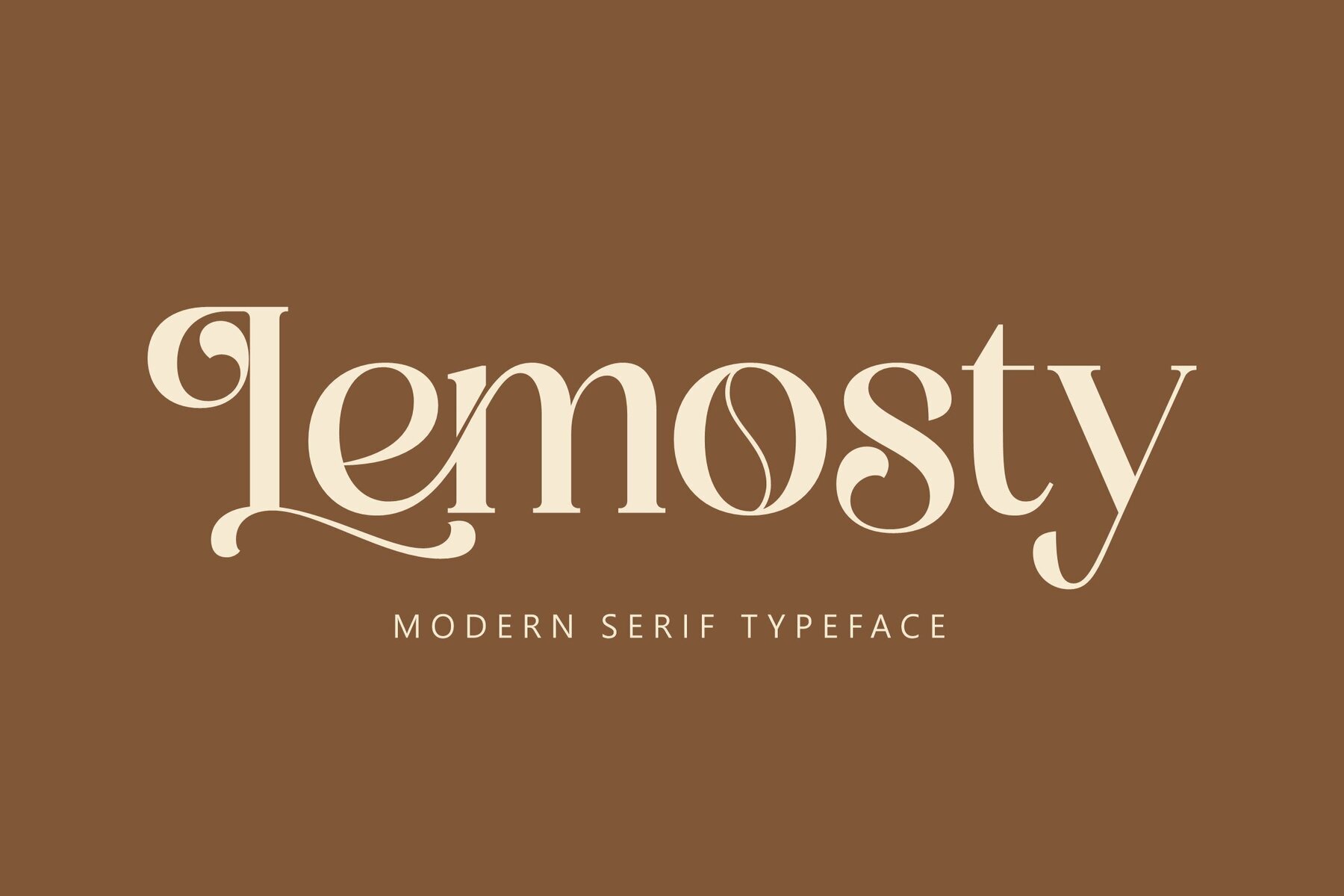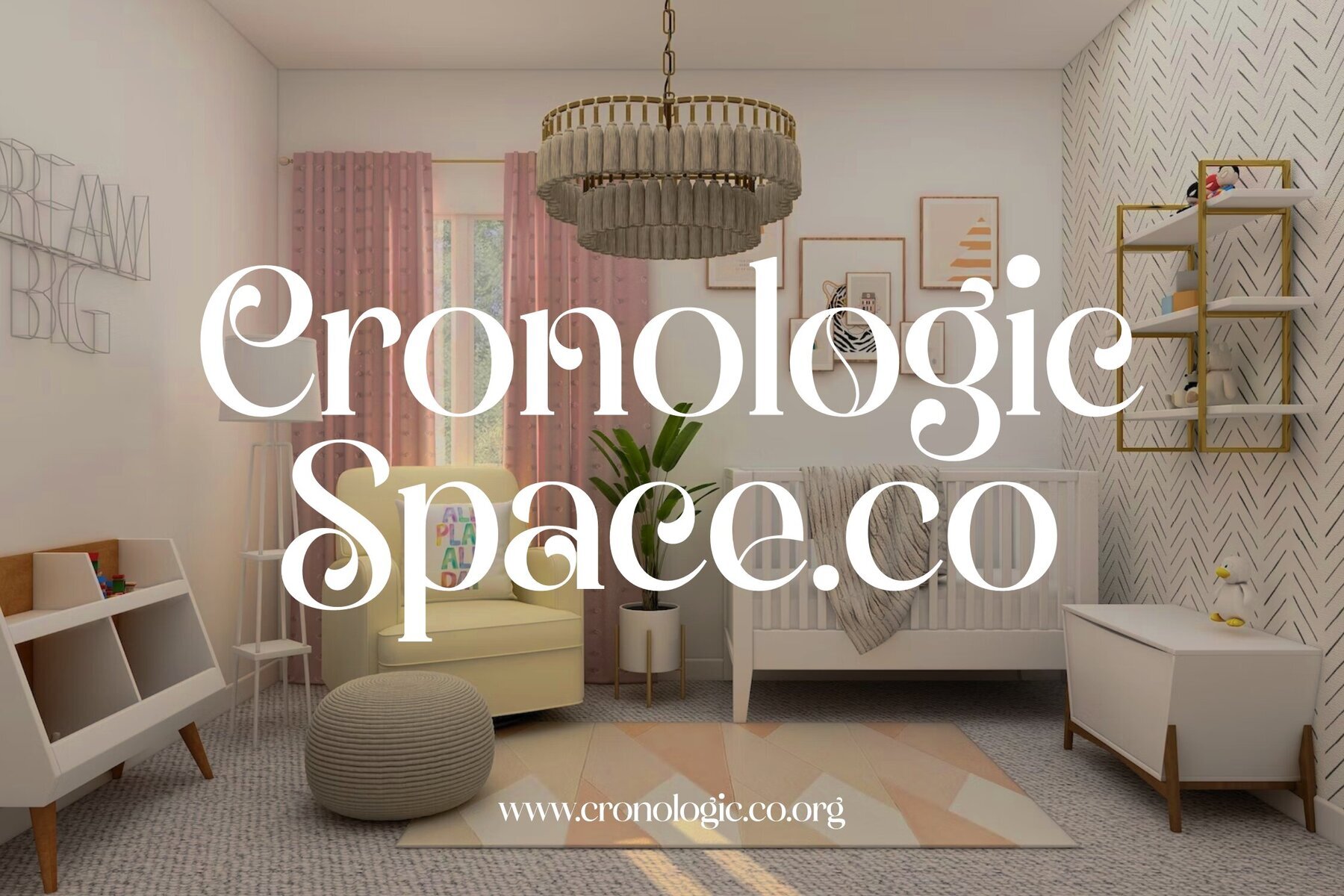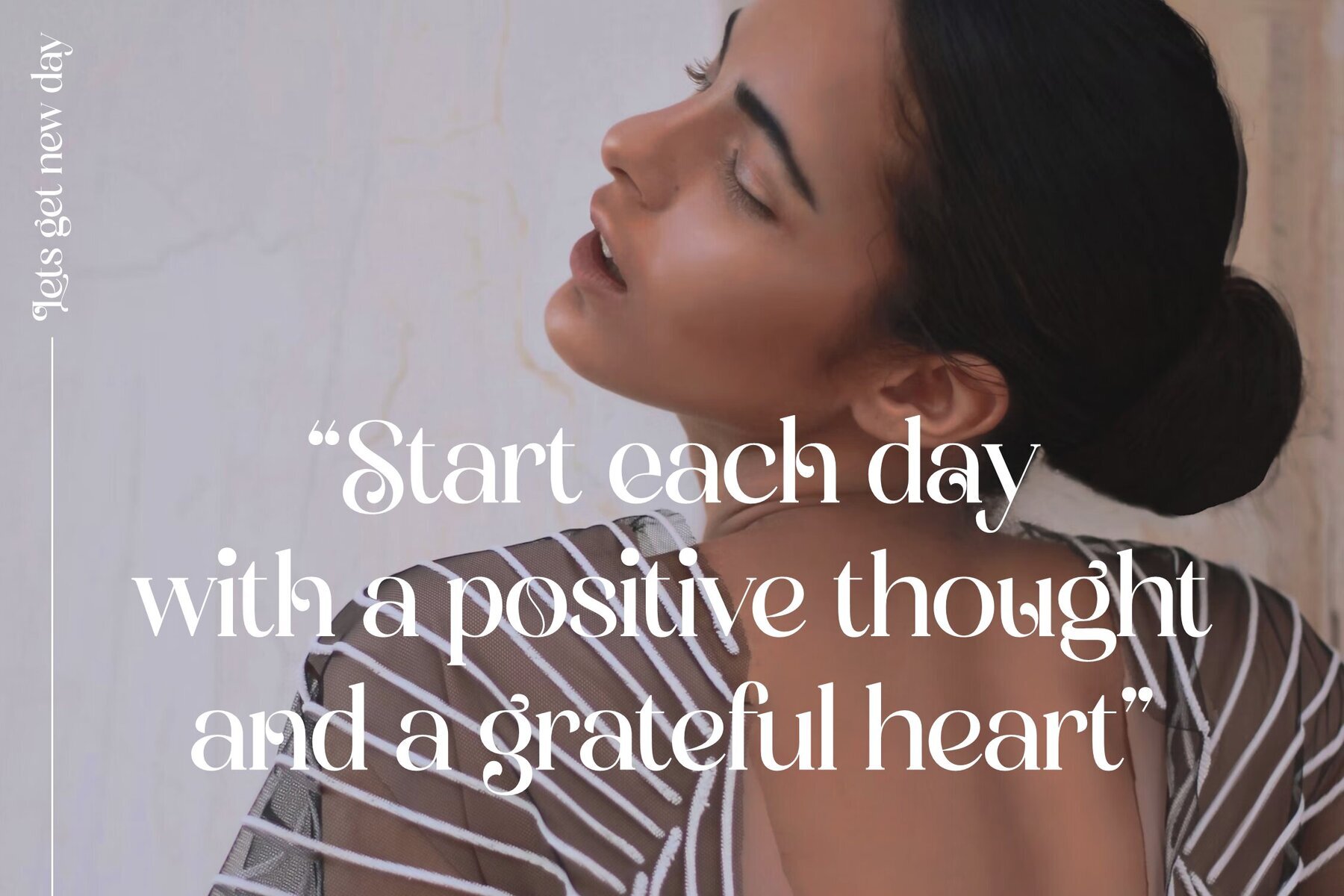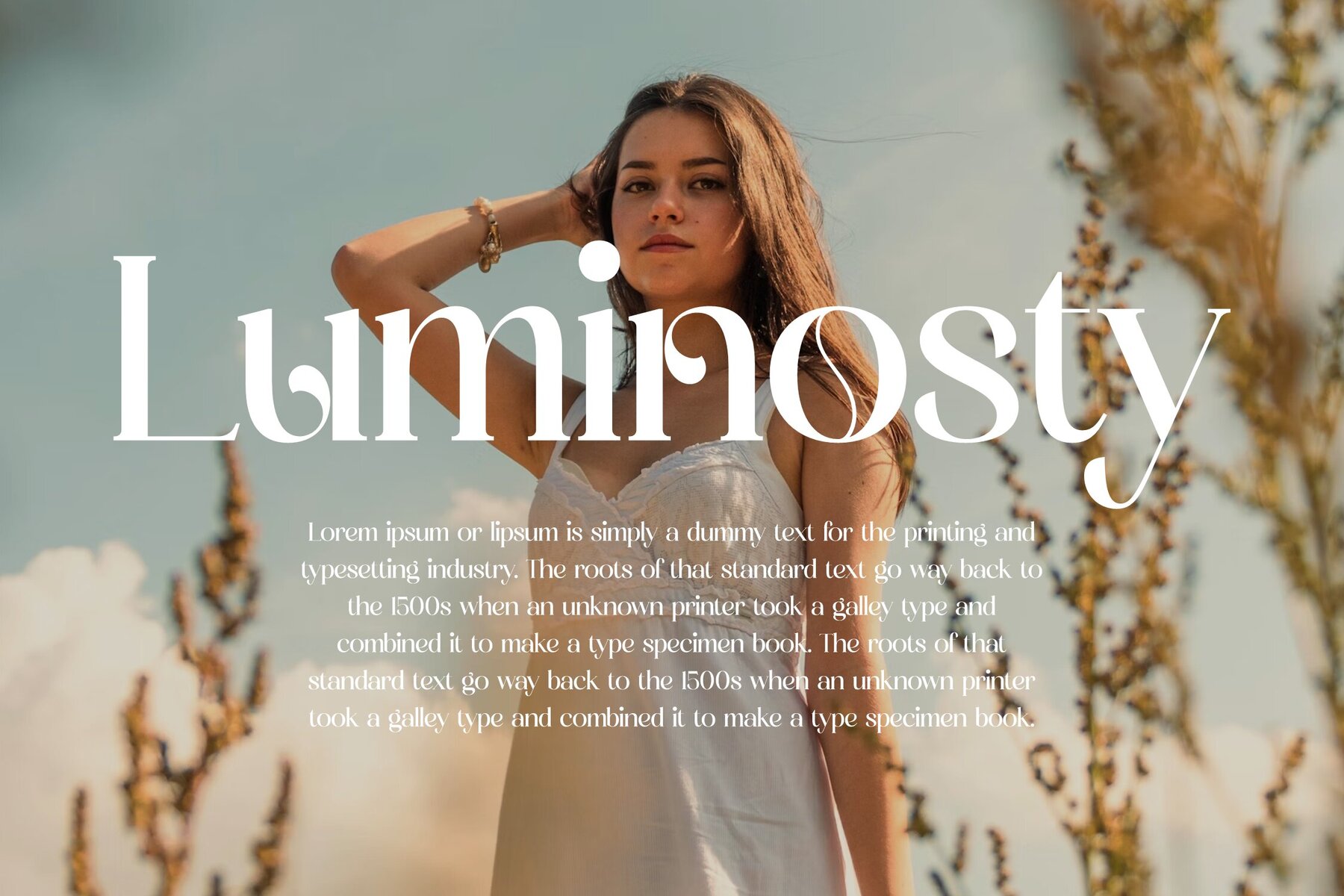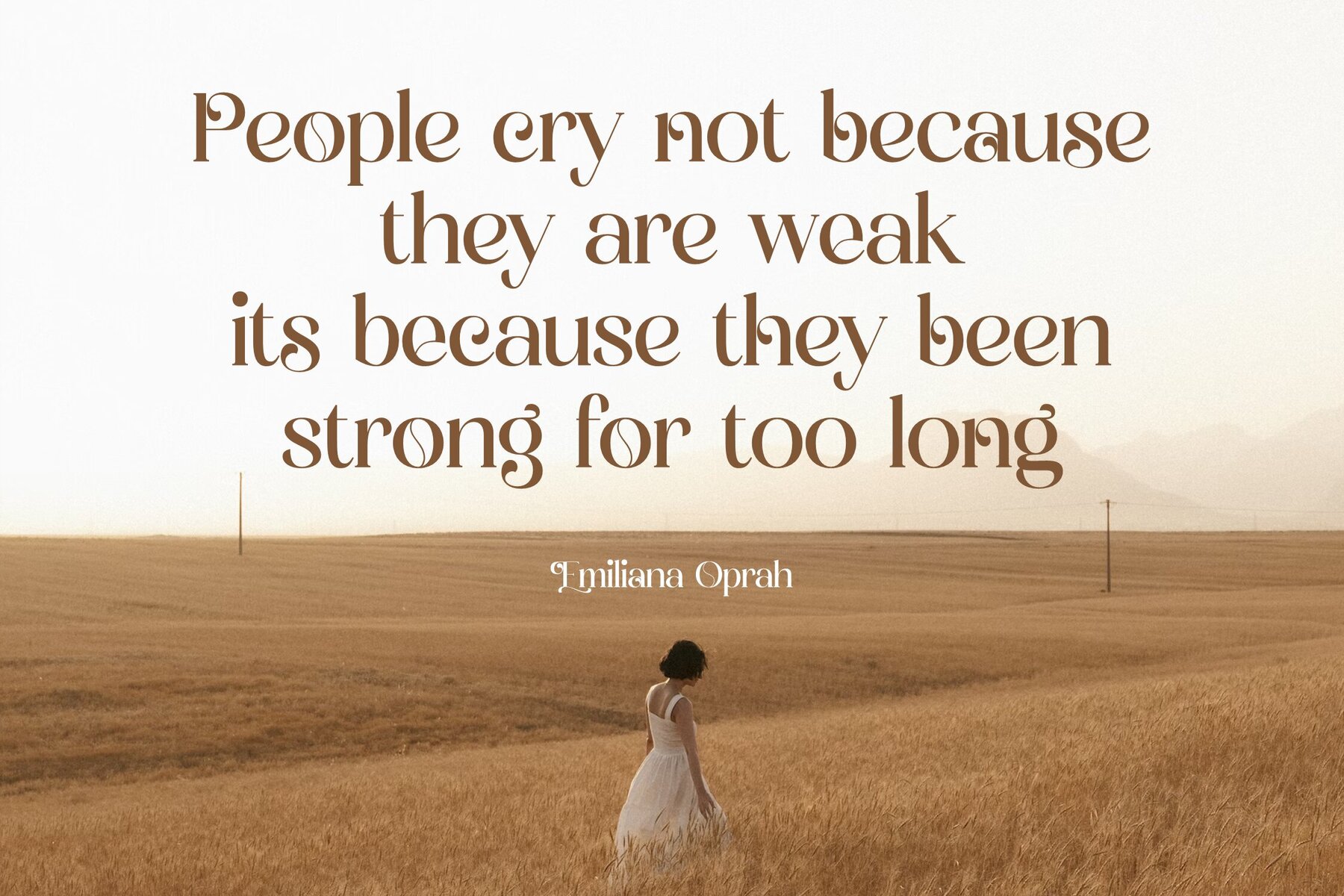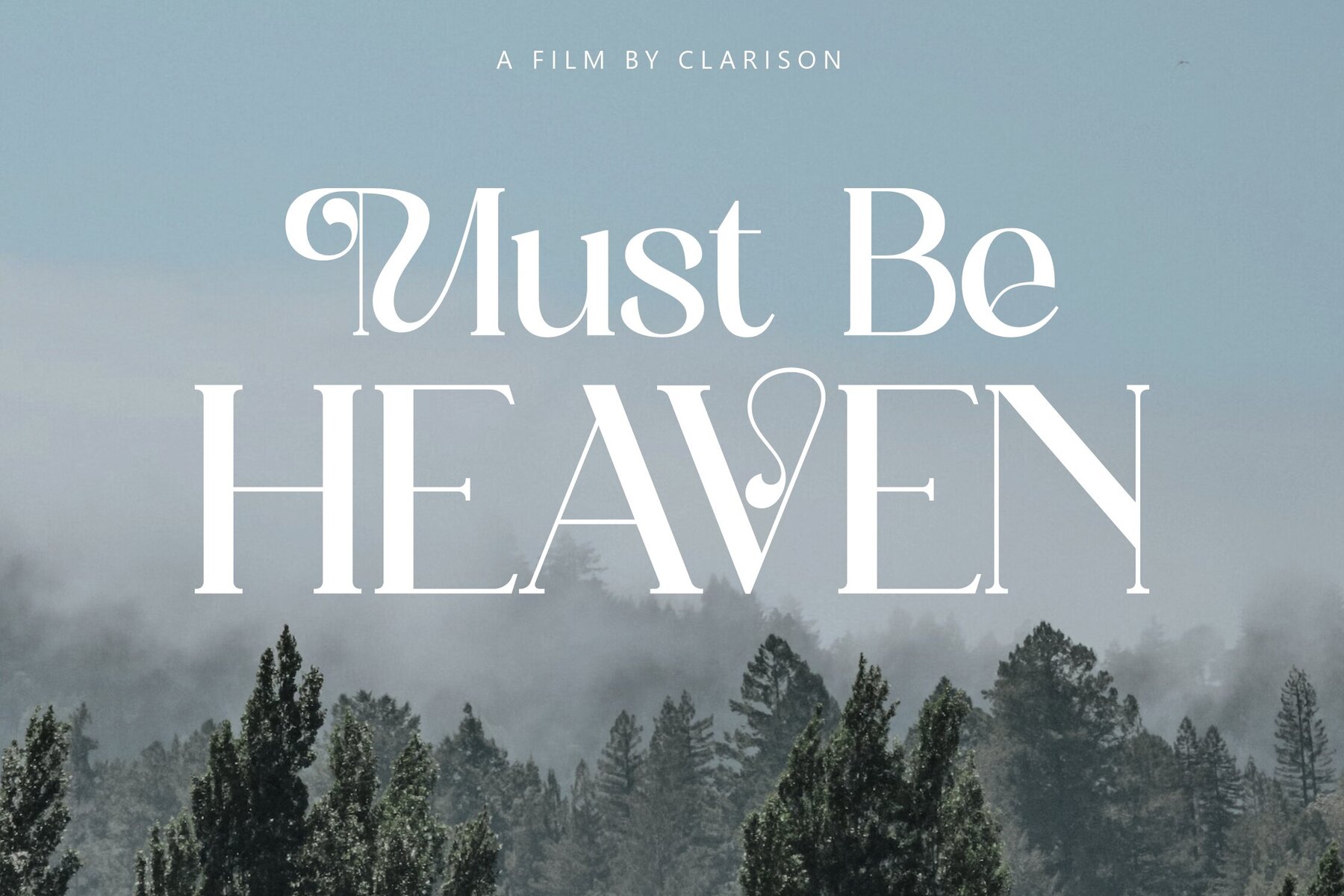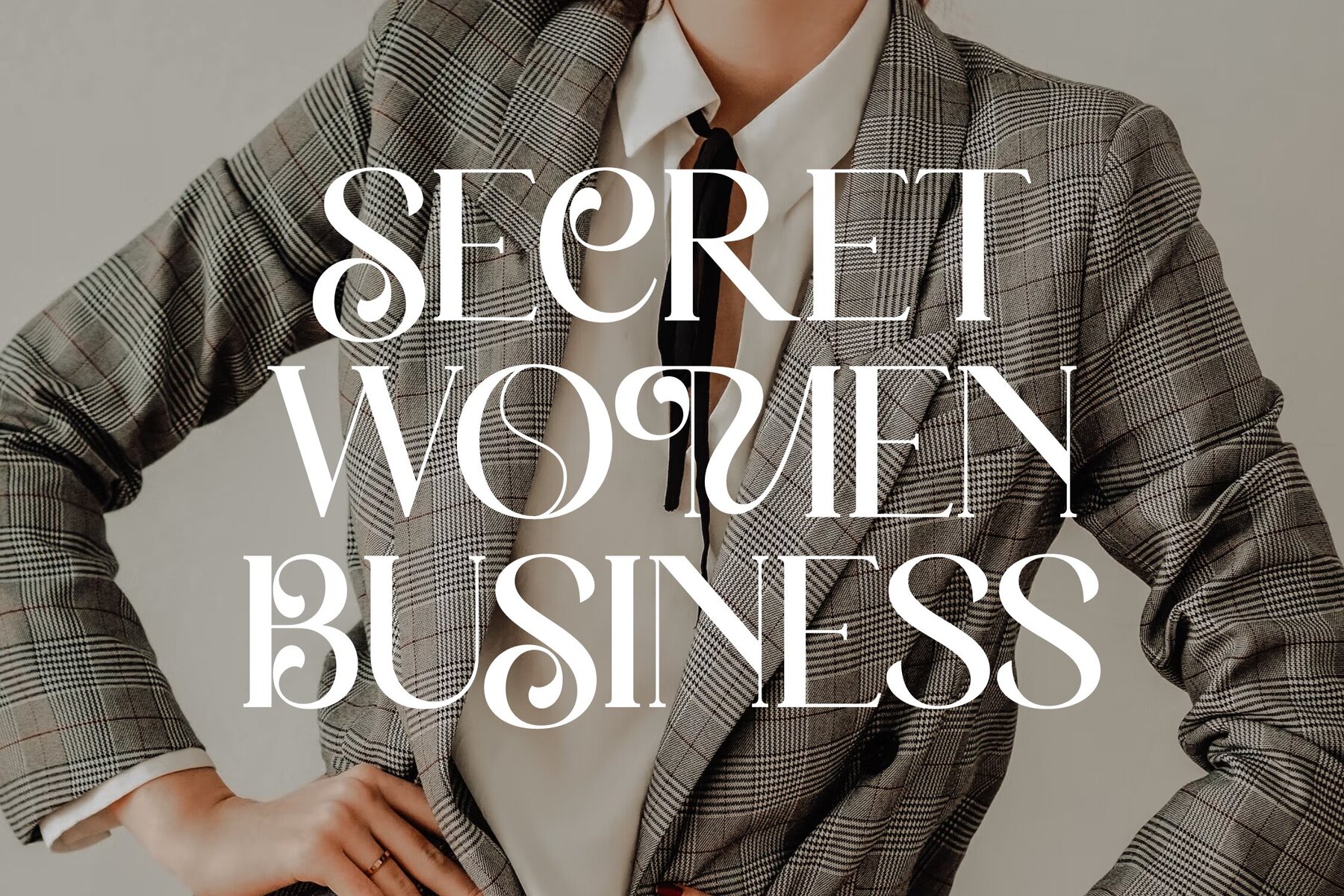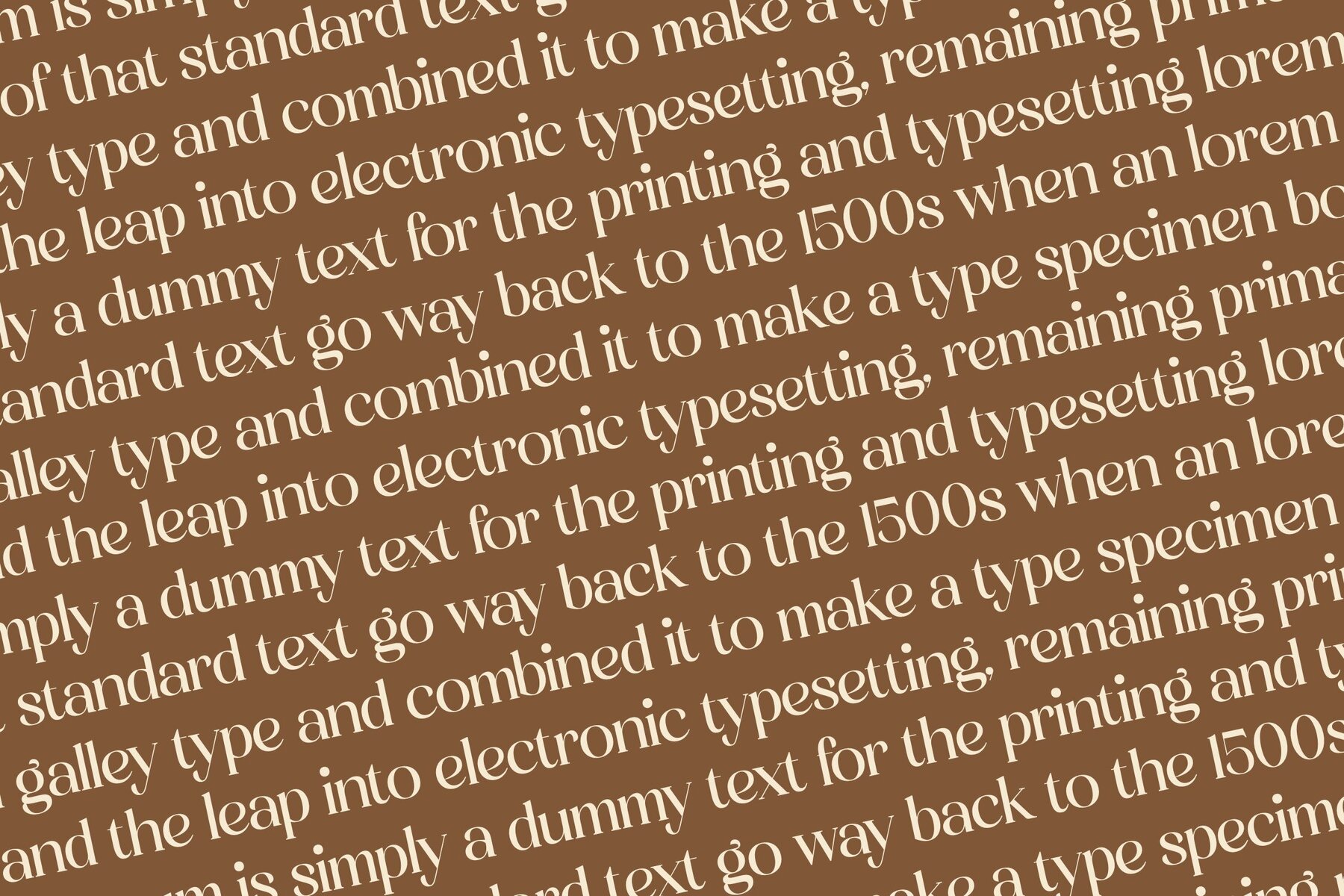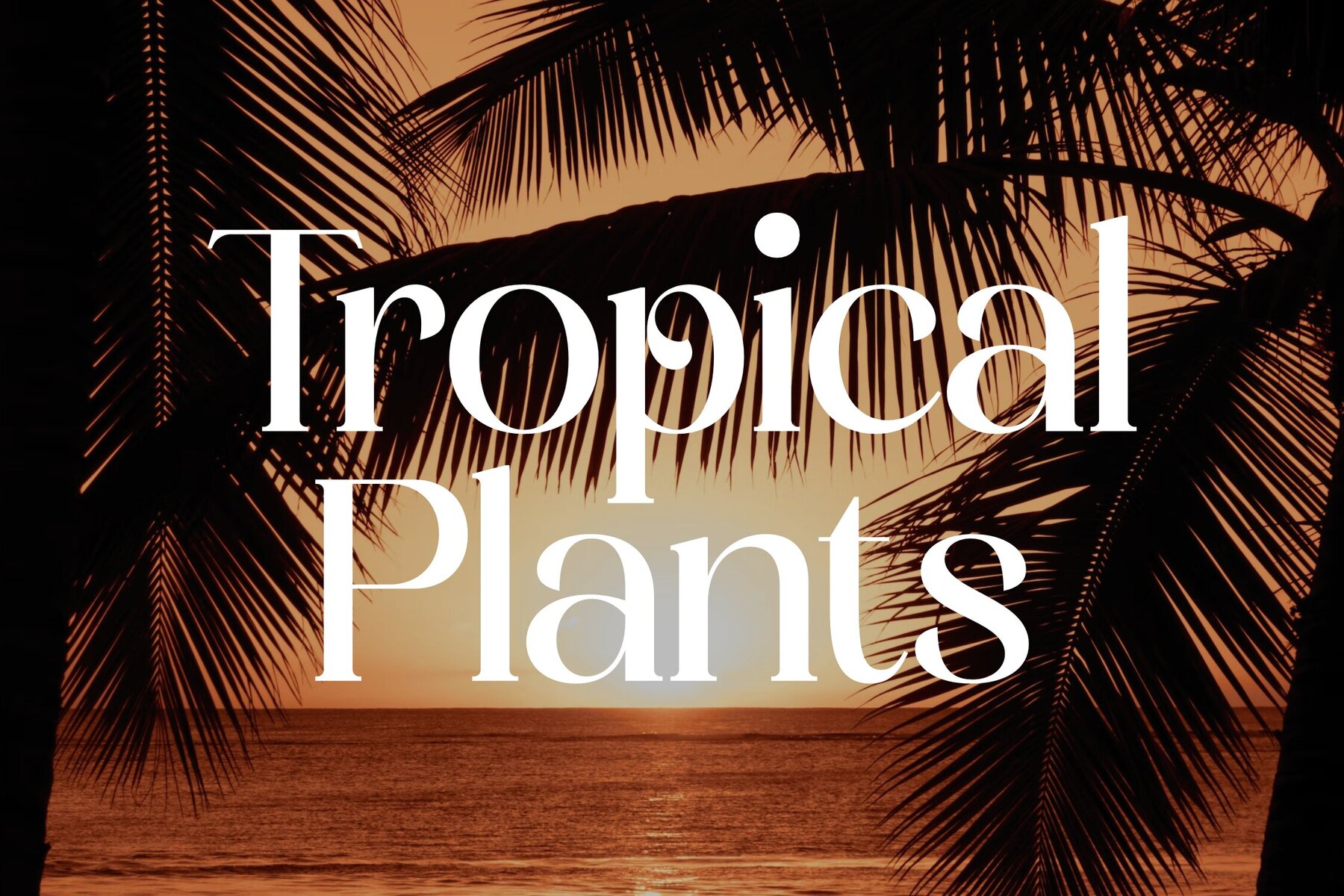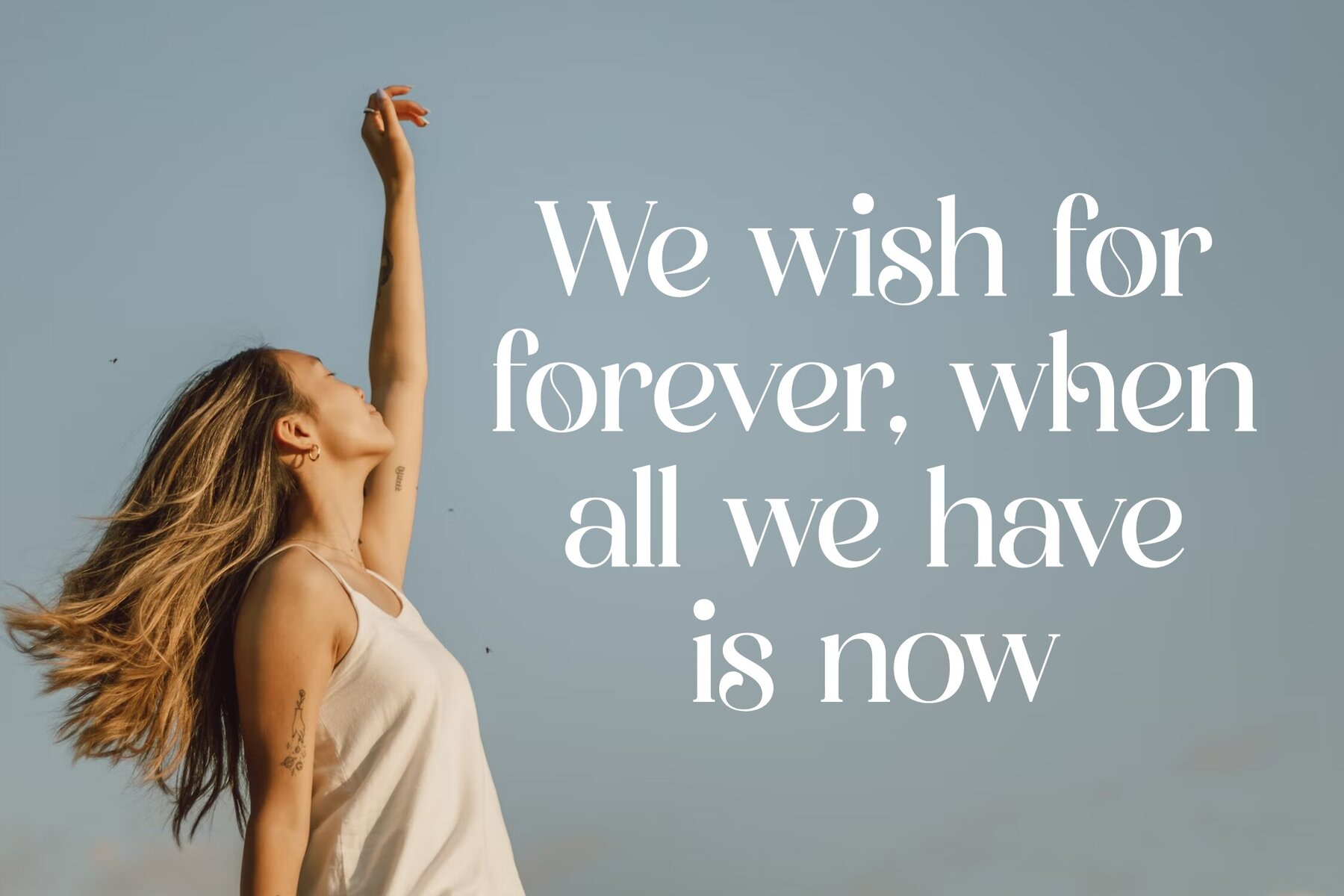
Lemosty Font
Introducing Lemosty, a serif typeface from Storytype Studio that seamlessly blends modern and classic aesthetics. With its unique flair and contemporary vibe, Lemosty is ideal for crafting elegant and luxurious logos, book or movie titles, and fashion branding. This versatile font suits magazine layouts, clothing lines, refined lettering, and inspirational quotes. Discover the extensive features of Lemosty: Add a touch of sophistication to your design projects with the exquisite Lemosty typeface.Lemosty Typeface